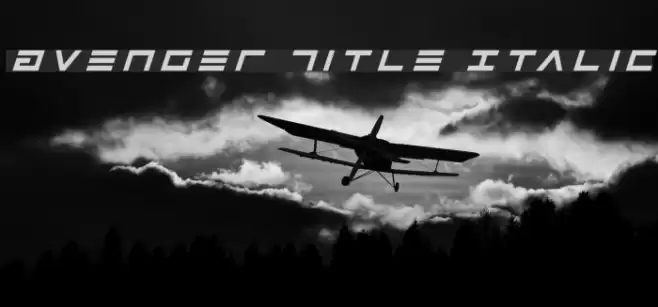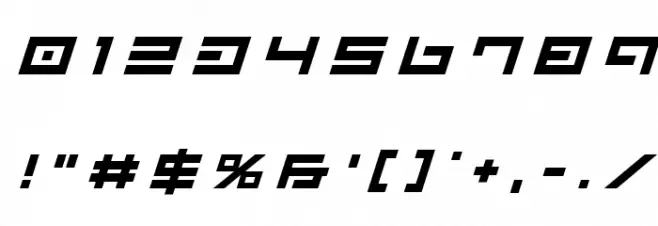
Avenger Title Italic Font
Avenger Title Italic Description
This font features a bold, italicized style with a futuristic and angular design. The characters are constructed with sharp, geometric lines and slanted edges, giving it a dynamic and energetic appearance. The uppercase and lowercase letters maintain a consistent slant, enhancing the italic effect. The numerals and special characters follow the same angular theme, ensuring uniformity across the font. The overall design is sleek and modern, making it suitable for projects that require a strong, impactful visual presence.
A bold, italicized font with a futuristic, angular design from Uncategorized fonts.
- Proposed Projects: Ideal for movie titles, video game covers, tech branding, and sci-fi themed projects.